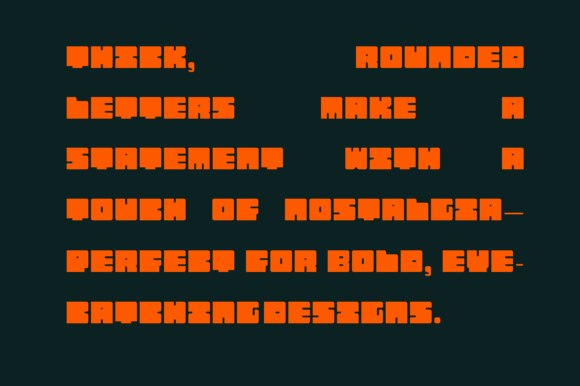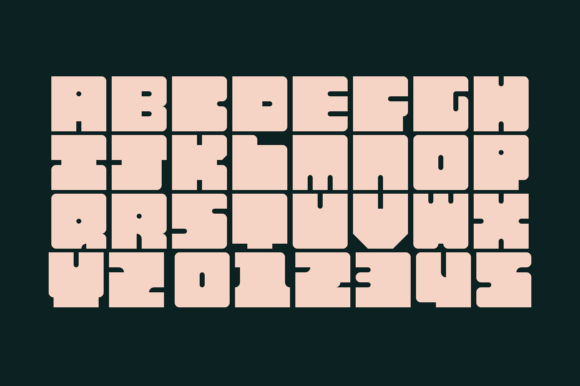
Introduction to Moply Font
You’ve finally landed that dream creative project – a bold new branding campaign or a striking poster for a client. As you dive into designing, you start thinking about the perfect font to make your project pop. That’s when you stumble upon Moply Font, and you know you’ve found the perfect companion for your creative vision.
Moply Font is more than just a design resource – it’s a statement-maker. Its bold, geometric, and retro aesthetic will transport your design to a bygone era, yet its modern twist will keep it fresh and relevant. With its blocky, all-caps style and rounded edges, Moply Font is the perfect choice for designers seeking a high-quality, attention-grabbing font for their projects.
Key Features of Moply Font
- High-quality design resource suitable for various creative projects
- Unique, stylish design with a transparent background for easy customization
- Perfect for use in digital designs, such as graphics, logos, and web content
- Designed to provide a clean and modern aesthetic, making it ideal for creative projects
Honest Review: Moply Font
I recently had the chance to work with the Moply Font, and I must say it’s been a pleasant experience. The font is a great addition to any design resource, and its free download makes it easily accessible to anyone.
- ✨ The Moply Font has a clean and modern design that works well for creative projects.
- ✨ It comes in a variety of weights and styles, making it easy to find the perfect fit for your project.
- ✨ The font is highly customizable, allowing you to adjust the size, color, and even add a transparent background to match your design needs.
- ⚠️ The font may not be suitable for very large or complex designs, as it can become difficult to read at certain sizes.
- ⚠️ Some users may find the font’s modern design to be too trendy or overused.
Overall, I’m impressed with the Moply Font and its high quality design. It’s a great resource for anyone working on a creative project, and its free download makes it a valuable addition to any design library.
Getting the Most Out of Moply Font
To get the most out of the Moply Font, use it in conjunction with other design elements, such as images and shapes, to create visually appealing and high-quality designs. Experiment with different font sizes, colors, and styles to find the perfect combination for your creative project.
Common Use Cases for Moply Font
The Moply Font is suitable for a variety of creative projects, including graphic design, digital art, and typography. It’s also a great resource for designers who need a high-quality font with a transparent background.